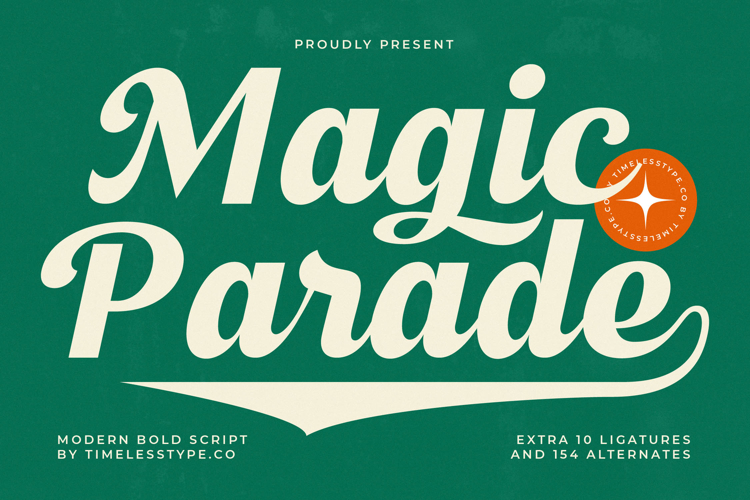
Magic Parade - Modern Bold Script
Unleash a wave of captivating charm and elegant presence with Font Magic Parade - Modern Bold Script Script. This script typeface masterfully blends vintage nostalgia with contemporary sophistication, creating an irresistibly smooth and bold aesthetic. Its generous curves and confident flow ensure your message is not just seen, but felt, leaving a lasting impression of refined craftsmanship and vibrant energy.
Experience unparalleled design flexibility with every character. Font Magic Parade - Modern Bold Script Script offers exceptional creative depth, boasting an impressive collection of 10 ligatures and 154 alternates. This rich typographic toolkit allows for seamless customization, enabling you to craft unique headlines, logos, and branding elements that truly stand out with a personalized touch and dynamic rhythm.
Perfectly suited for elevating any brand narrative, this typeface is the ideal choice for projects demanding both a playful spirit and a professional finish. It excels in luxury branding, elegant product packaging, inviting editorial layouts, and impactful event invitations. Whether it’s for a high-end boutique or a whimsical café, Font Magic Parade - Modern Bold Script Script adds an authentic touch of bespoke appeal and memorable character.
Expand your creative reach without boundaries. With its extensive multilingual support, Font Magic Parade - Modern Bold Script Script adapts seamlessly across global markets, making it incredibly versatile for international projects. Invest in a typeface that promises not only stunning visual impact but also broad accessibility, ensuring your designs resonate universally and maintain their polished, professional integrity.